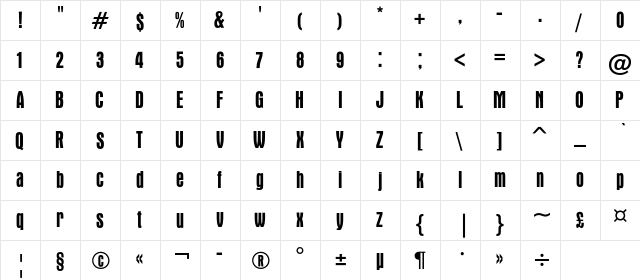
ApicalMediumC Regular
Design Context for ApicalMediumC Typeface
ApicalMediumC takes a measured approach to typography — its balanced proportions and neutral character make it a reliable workhorse for both digital and print work.